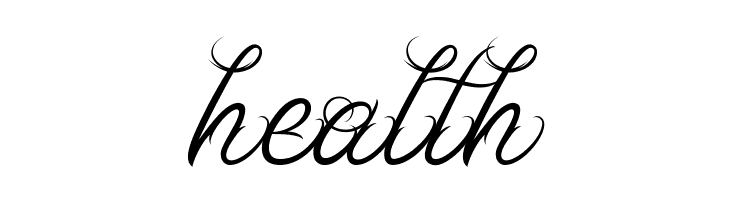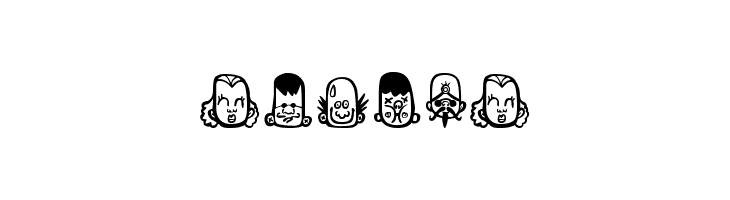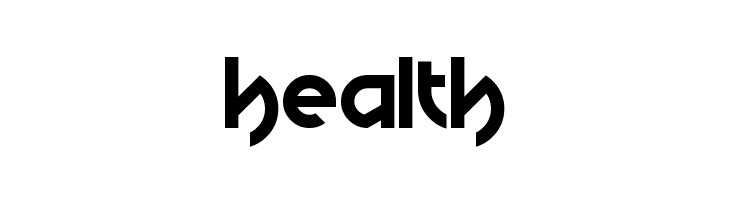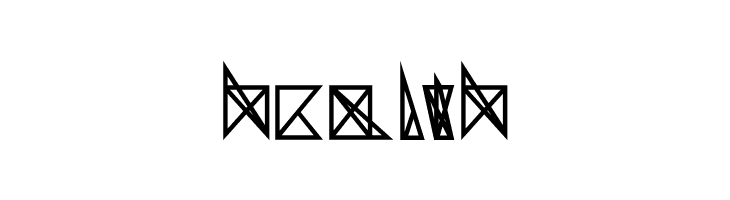
A dot matrix font with a retro, digital scoreboard style.
A spooky, dripping font perfect for Halloween-themed designs.
A modern serif font with stencil-like cuts, combining elegance with contemporary style.
An ornate and decorative script font with intricate swirls and flourishes.
Ornamental symbol font with geometric and decorative motifs.
A whimsical display font featuring cartoon faces and totemic symbols.
An elegant, cursive font with bold, flowing characters.
A bold, geometric font with angular shapes and a futuristic aesthetic.
A geometric and abstract font with bold, angular shapes and intricate line patterns.